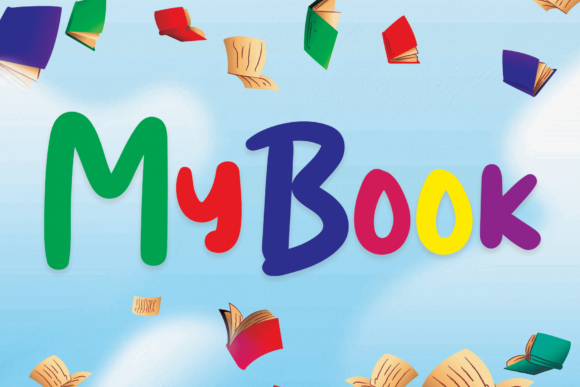
Introducing the MyBook Font - The Epitome of Whimsy and Playfulness!
In a world where conformity reigns supreme, the MyBook Font stands as a defiant beacon of originality and uninhibited expression. This extraordinary display font, hailing from the creative mind of Misterletter.co, is a captivating symphony of bold strokes and playful curves, beckoning you to unleash your inner child and paint the world with your imagination.
MyBook is not just a font; it's an invitation to embark on a whimsical adventure, to rediscover the sheer joy of creation. With its childlike exuberance, this font breathes life into any kids and school project, transforming ordinary words into vibrant expressions of creativity.
Imagine the delight in your child's eyes as they witness their favorite bedtime story come alive, narrated in the captivating dance of MyBook's characters. Watch as their imaginations soar, their little hearts filled with wonder and excitement.
But MyBook's magic extends far beyond the classroom walls. It's a font that sparks joy and ignites creativity in hearts of all ages. Use it to craft personalized greeting cards that brim with warmth and charm, to design eye-catching posters that demand attention, or to add a touch of whimsy to your social media posts. Let MyBook be your artistic paintbrush, transforming the mundane into masterpieces.
With MyBook, you'll never run out of creative possibilities. Its versatile nature allows it to effortlessly adapt to a myriad of styles, from cheerful and playful to elegant and sophisticated. Whether you're designing a children's book, creating a whimsical logo, or simply adding a dash of fun to your everyday projects, MyBook is your trusty companion.
Join the creative revolution and embrace the boundless potential of MyBook. Let your imagination run wild, let your creativity shine, and let MyBook be your faithful ally in creating a world brimming with joy, laughter, and boundless imagination.